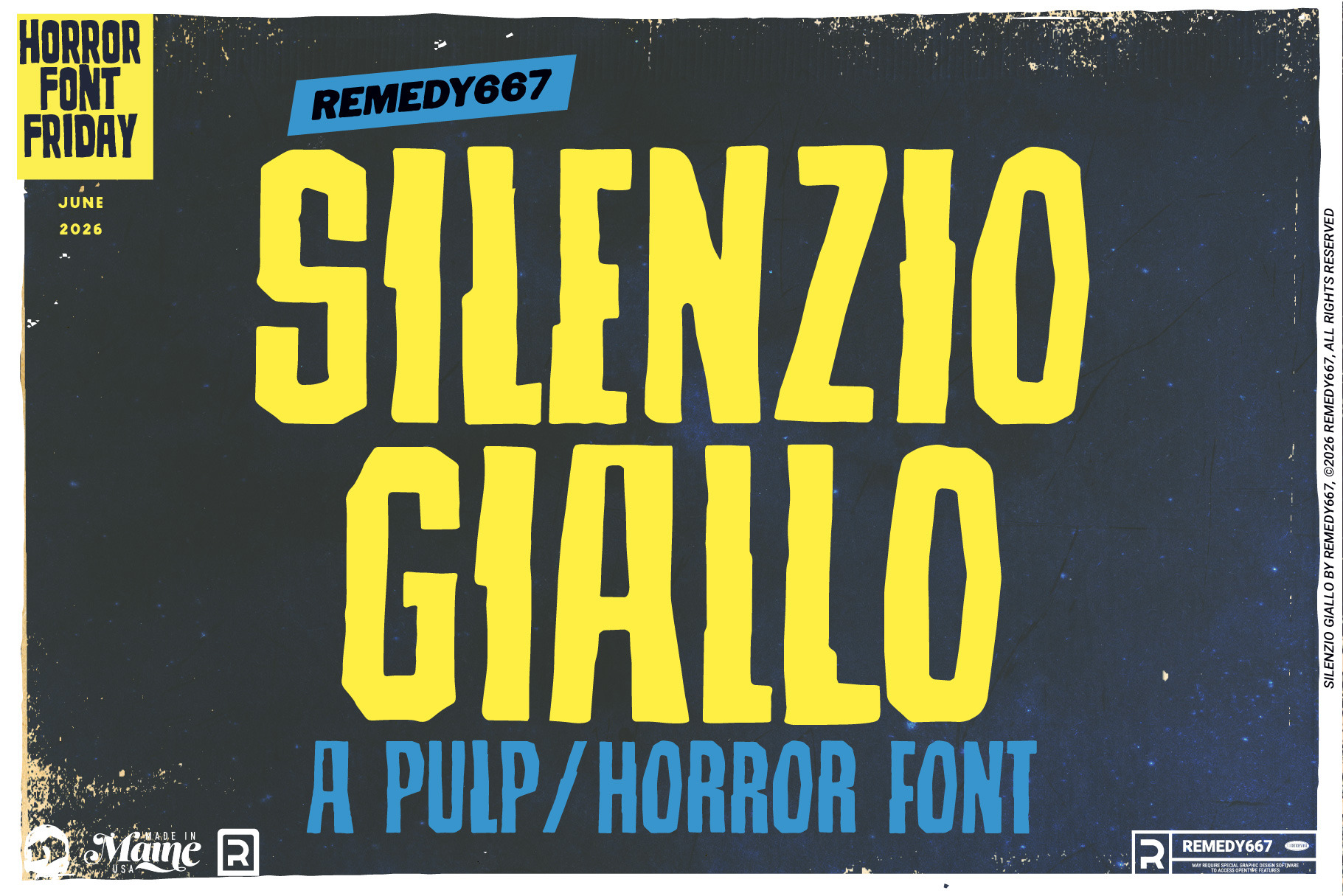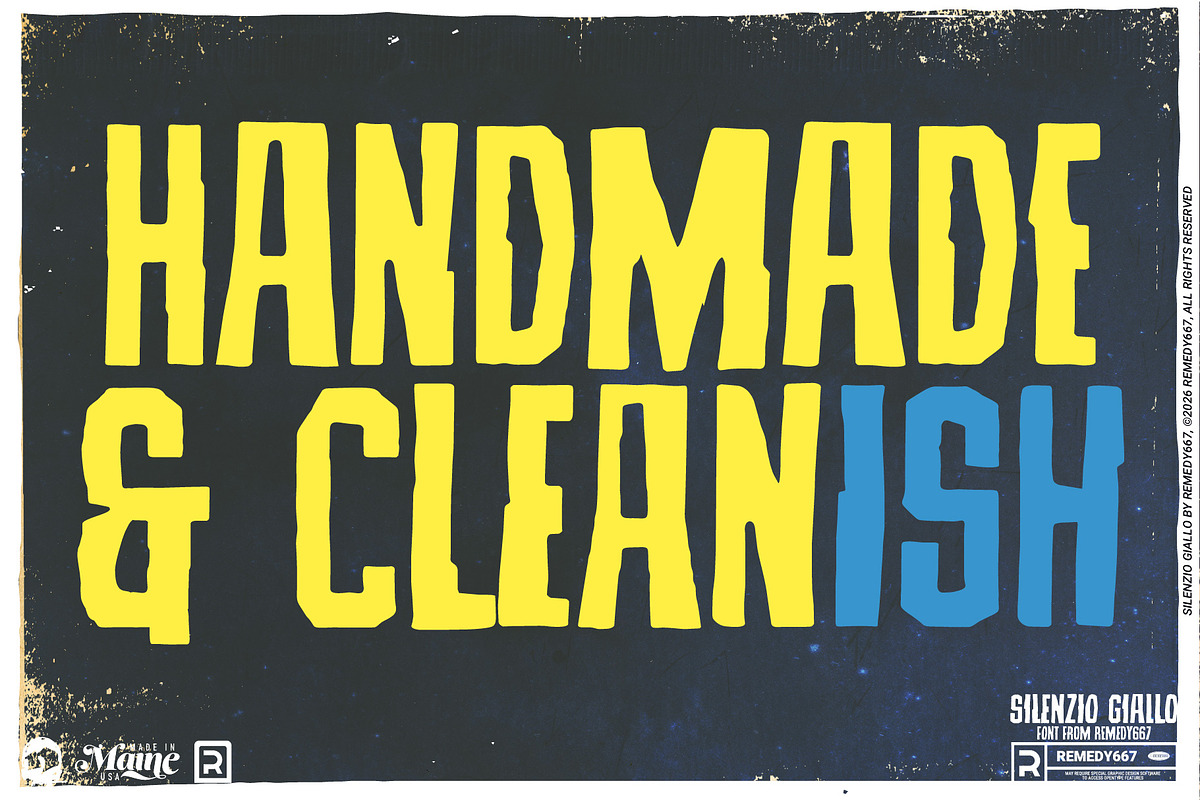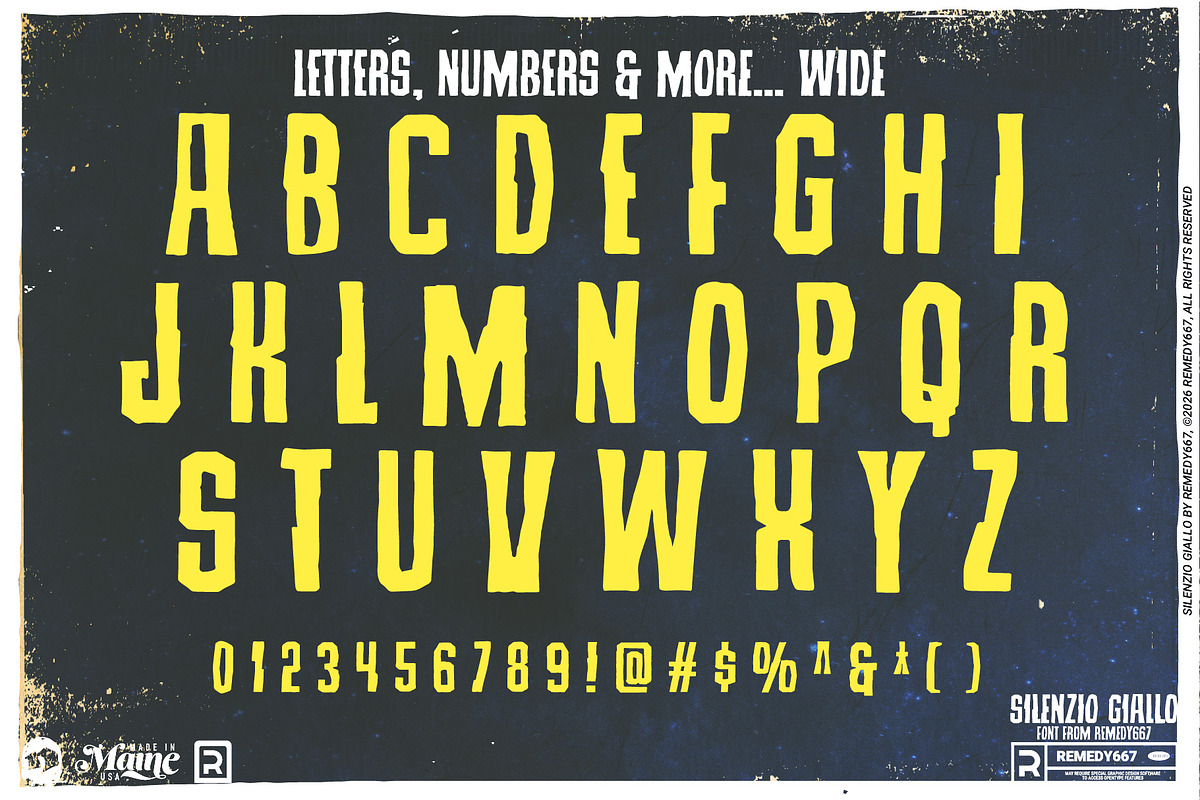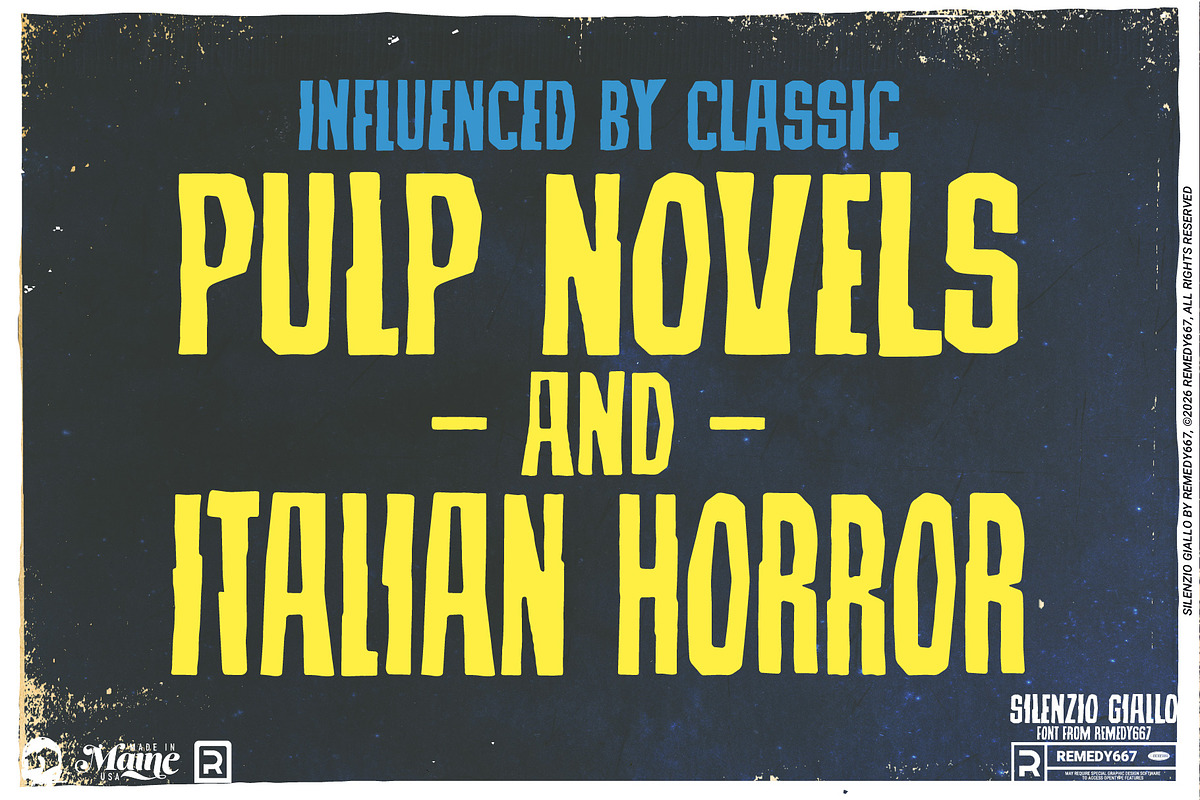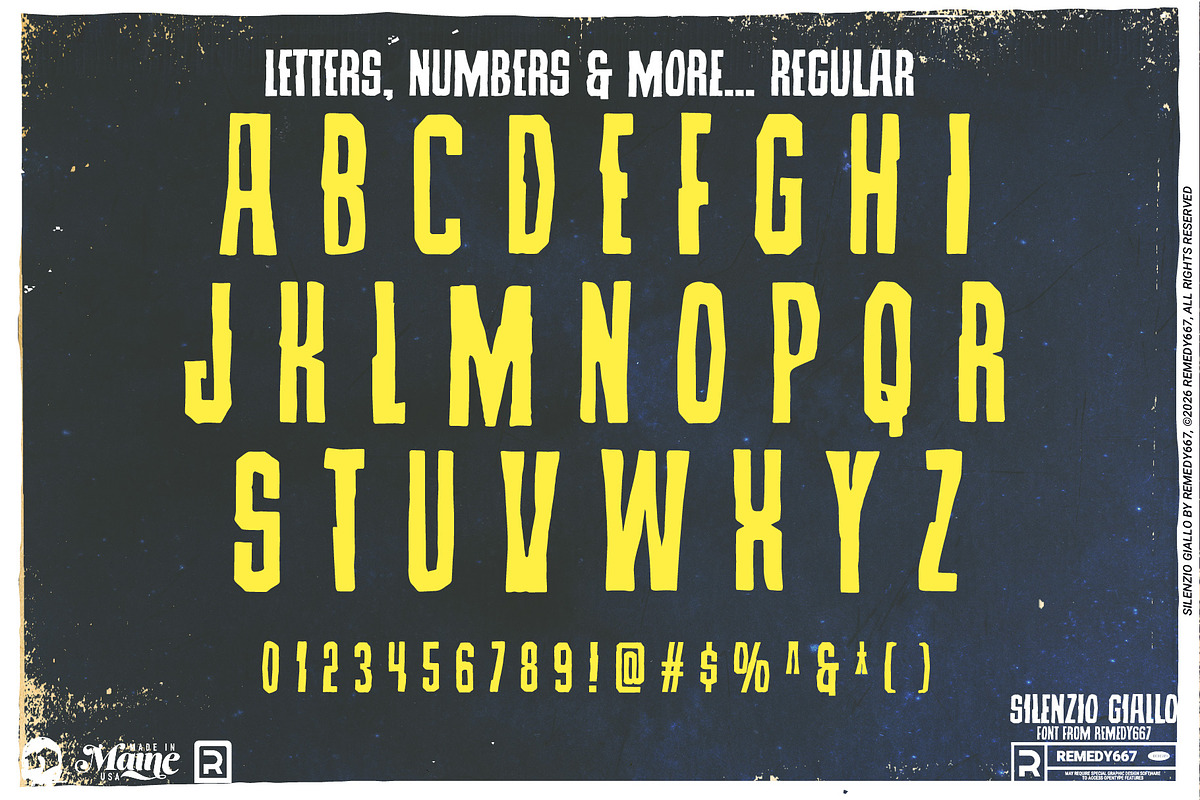
Silenzio Giallo - MCM Horror Font
Can you hear it? The whisper of a razor blade, the click of a camera shutter, the silence before a scream? Silenzio Giallo emerges from the striking Italian poster lettering of the 1960s, bringing with it all the stylish suspense and mid-century mystery of European genre cinema.
Equal parts pulp thriller, spy caper, and Giallo nightmare, Silenzio Giallo captures the bold sophistication of 1960s lettering. Whether you’re designing vintage-inspired posters, retro book covers, billing blocks, or modern projects with a classic flair. Silenzio Giallo delivers timeless character with a touch of danger.
Inspired by Italian movie poster lettering from 1960s gere cinema
Perfect for Giallo, pulp, spy, and mid-century inspired designs
Includes both Regular and Wide versions
Full character set with multilingual support